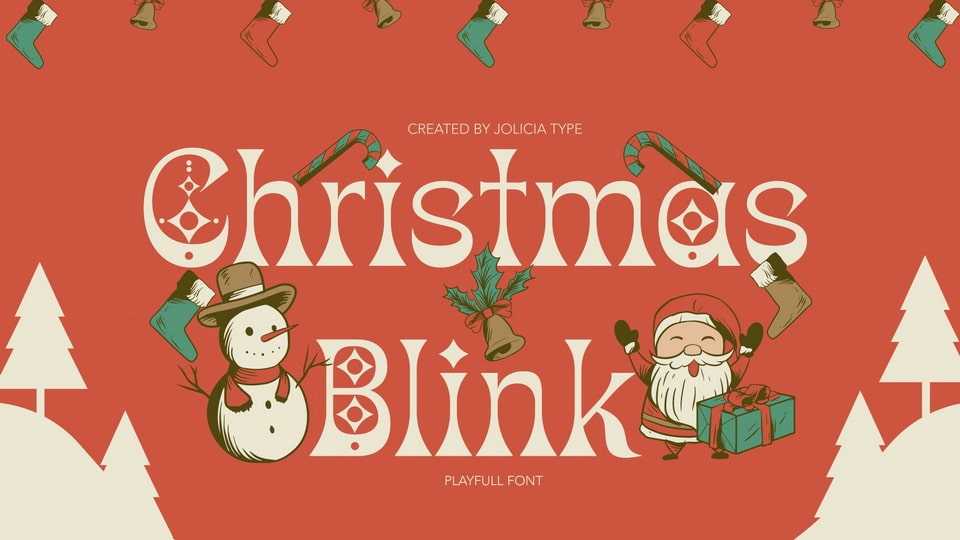
Download Christmas Blink font, the perfect festive typeface to add a touch of holiday magic to your designs! Christmas Blink is more than just a font, it’s a journey into a playful wonderland of letters adorned with festive charm.